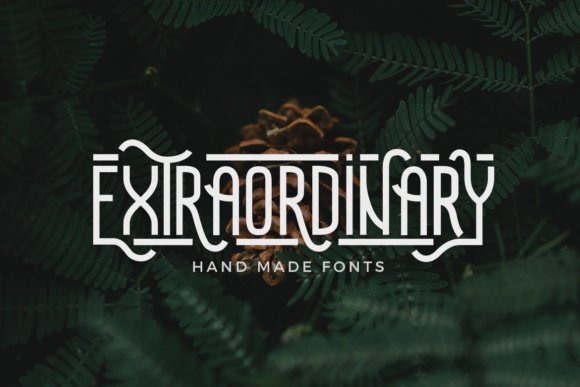
Unlocking the Power of Typography: Introducing the Extraordinary Font
Have you ever been stuck in a creative rut, staring at a blank page or screen, desperately searching for the perfect font to bring your design to life? I know I have! The perfect font can make all the difference between a good design and an extraordinary one. And that’s exactly what we’re going to explore today – the Extraordinary Font, a beautiful typeface that’s perfect for headings, logos, titles, and much more!
This versatile font is a valuable asset for designers, offering a wide range of possibilities to enhance their designs. Whether you’re working on a new logo, creating a promotional poster, or crafting a compelling headline, the Extraordinary Font is sure to impress. With its elegant and sophisticated design, it’s no wonder why this font is a favorite among designers looking to add a touch of class to their work.
- Unique Characteristic: The Extraordinary Font features a unique blend of modern and vintage styles, making it perfect for creative and artistic designs
Designer Review: Extraordinary Font
Overall, I’m quite impressed with Extraordinary Font. It’s a great choice for designers who want to add some flair to their projects. ✨ The font’s unique blend of modern and vintage elements makes it perfect for a wide range of applications, from branding to editorial design.
- Customizable: The font’s versatility is a major plus. It can be easily customized to fit any design style, making it a great choice for designers who want to add a personal touch.
- Legibility: Despite its ornate appearance, the font is surprisingly legible, making it suitable for both body text and headlines.
- Consistency: The font’s consistency across different font sizes and styles is impressive, ensuring a cohesive look in any design project.
However, there are a few limitations to consider: ⚠️ The font may not be suitable for very small font sizes, as the details can become difficult to read. Additionally, the font’s complexity may make it challenging to pair with other fonts.
Overall, I would highly recommend Extraordinary Font to designers who want to add some visual interest to their projects. While it may have some limitations, its unique style and versatility make it a valuable addition to any design toolkit.
Tips for Getting the Most Out of Extraordinary Font
Use the Extraordinary Font sparingly to create a dramatic effect. It’s perfect for headings, titles, or other text elements that need to stand out. Experiment with different font sizes and colors to create a unique visual identity.
The Extraordinary Font is ideal for:
- Creating eye-catching headings and titles
- Designing branding materials such as logos and business cards
- Adding a touch of elegance to presentations and documents
Q: What is the recommended font size for using Extraordinary Font?
The recommended font size for Extraordinary Font is between 12pt and 24pt. This range ensures optimal legibility and visual appeal. However, feel free to experiment with different font sizes to achieve the desired effect for your design project.